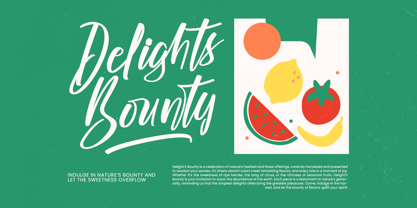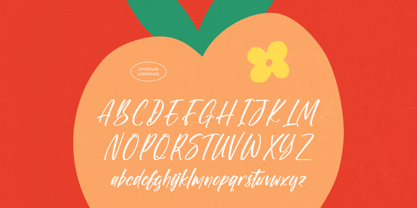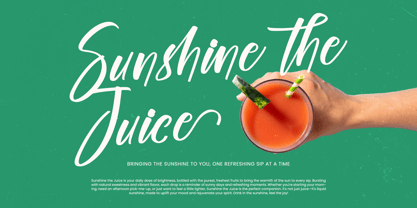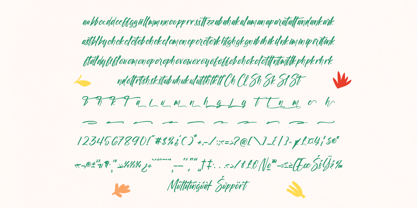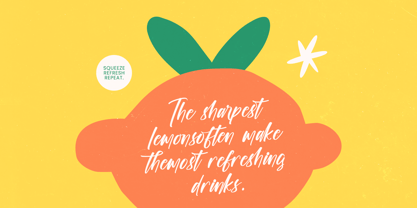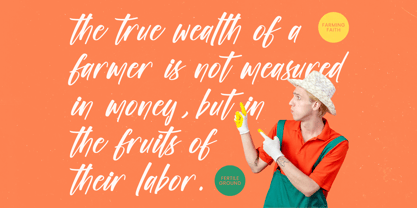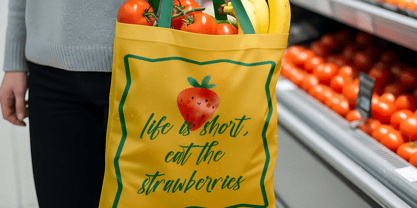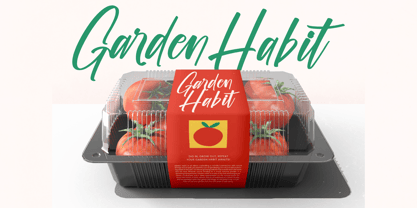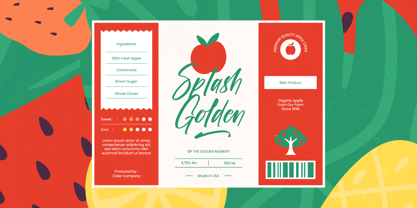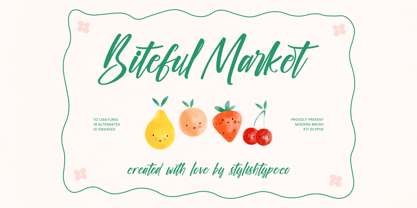
Biteful Market
by Stylishtype Studio
The Biteful Market Font Family was designed by Heru Utama Putra and published by Stylishtype Studio. Biteful Market contains 2 styles and family package options.
Biteful Market - Modern Brush Font ,Biteful Market is a cheerful modern brush script designed with smooth hand-painted strokes and a naturally bouncy rhythm that brings warmth and personality to every project. Its soft curves and organic flow make it perfect for bakery branding, kids’ products, cute packaging, social media quotes, and handmade-style illustrations. Featuring 112 ligatures, 19 stylistic alternates, and 10 playful swashes, this typeface gives creators the freedom to build charming, expressive typography with an authentic handcrafted feel